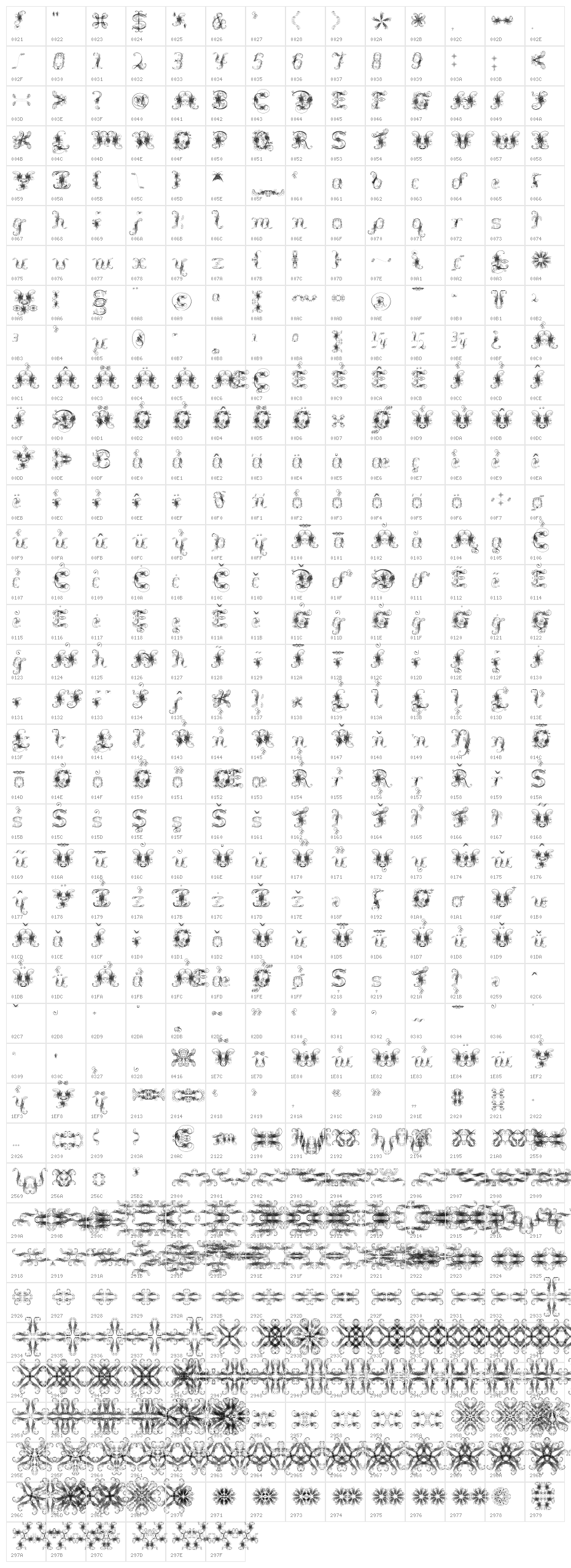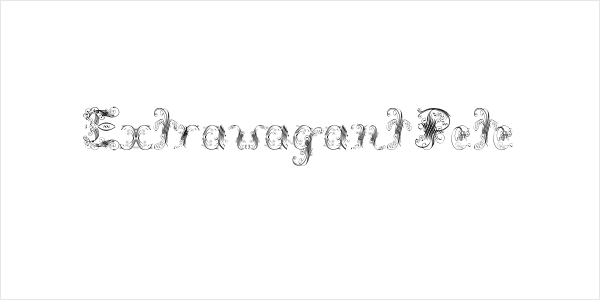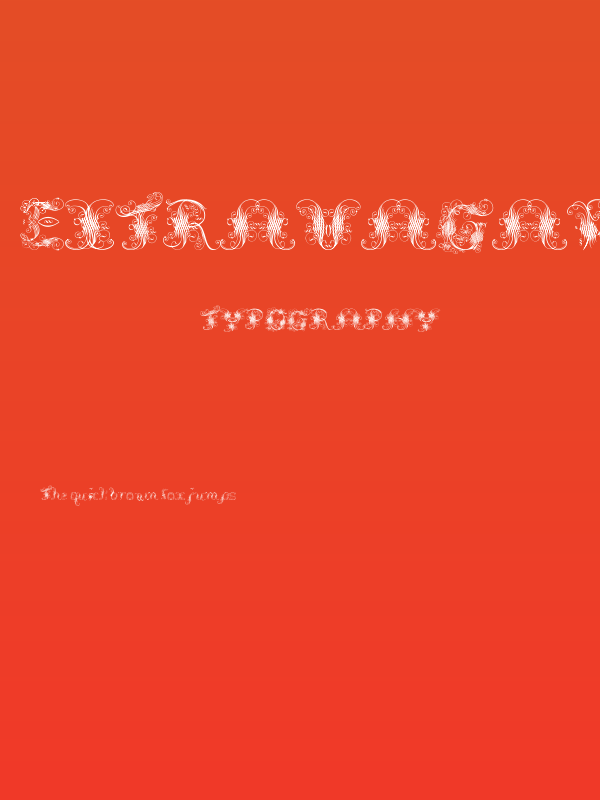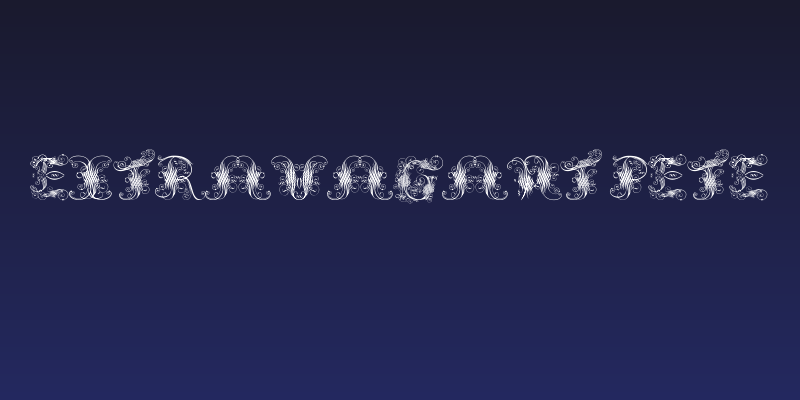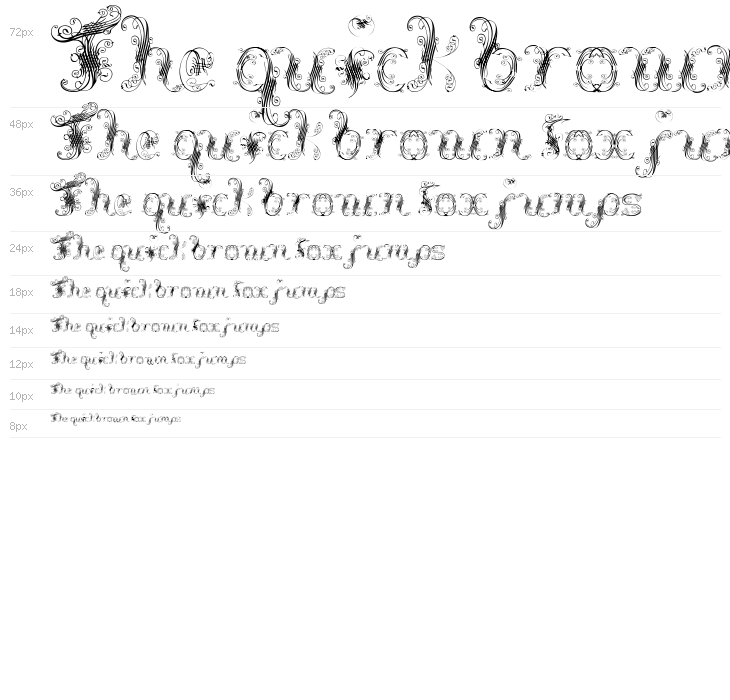
Extravagant Pete Font
Extravagant Pete Description
This font is an elaborate and ornate typeface characterized by intricate swirls and flourishes that embellish each letter and number. The design is highly decorative, with a whimsical and artistic flair that gives it a unique and eye-catching appearance. The characters are adorned with delicate lines and curves, creating a sense of movement and elegance. The font's complexity and detailed embellishments make it suitable for special occasions and projects that require a touch of sophistication and creativity. Its artistic style is reminiscent of vintage calligraphy, yet it maintains a modern twist with its playful and extravagant design.
Use CaseLogos, Invitations, Artistic Projects
Proposed ProjectsIdeal for wedding invitations, luxury branding, artistic posters, and decorative headlines.